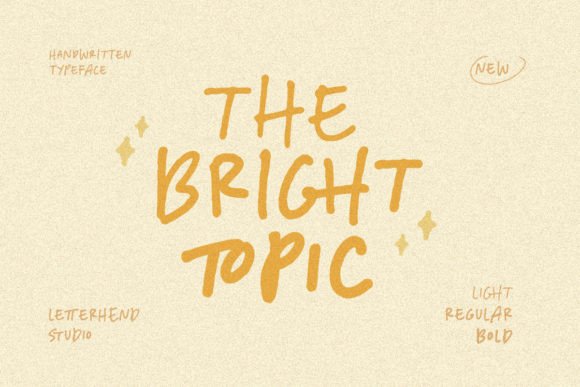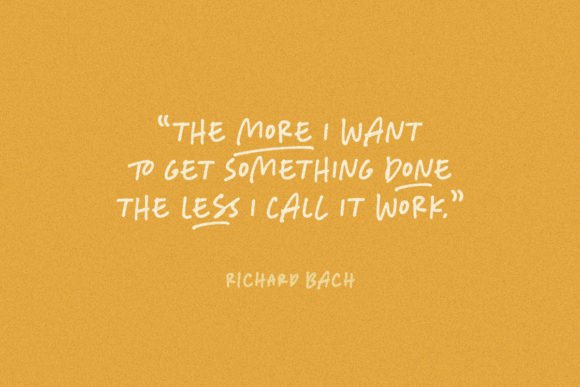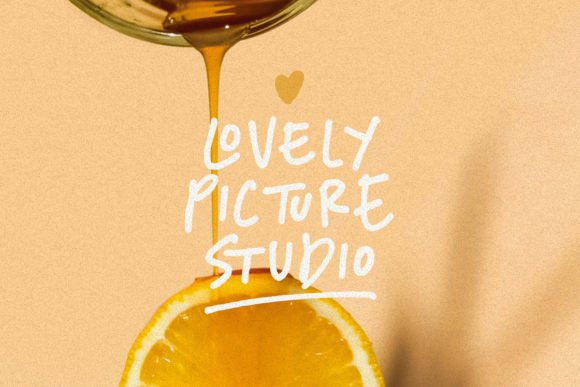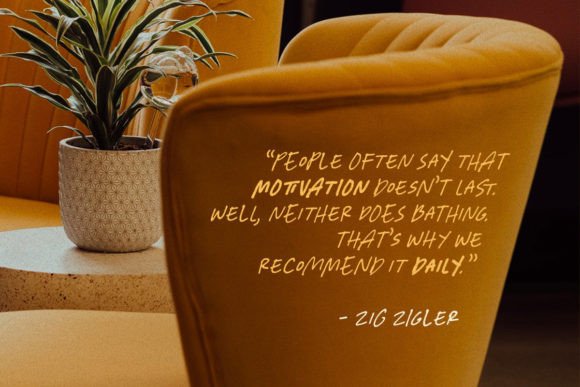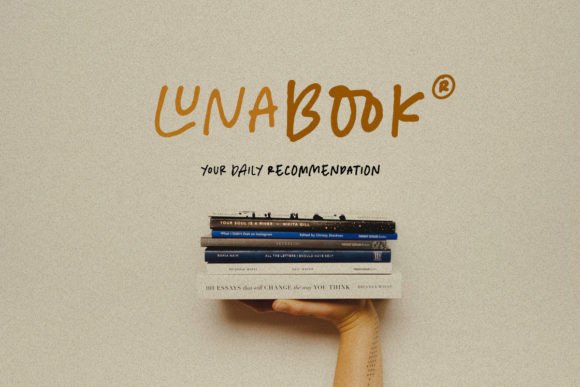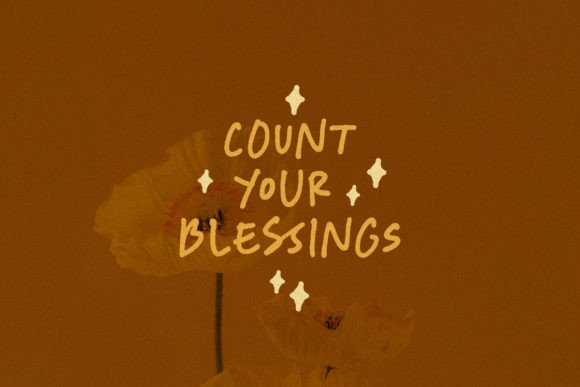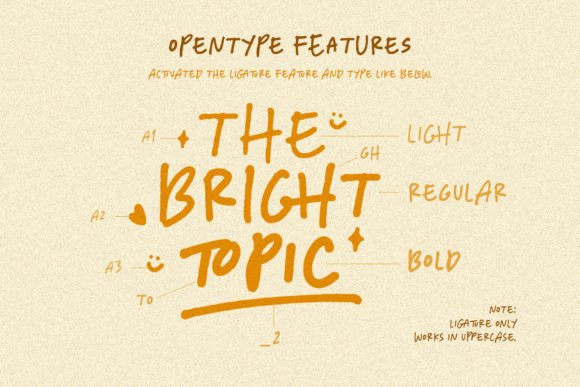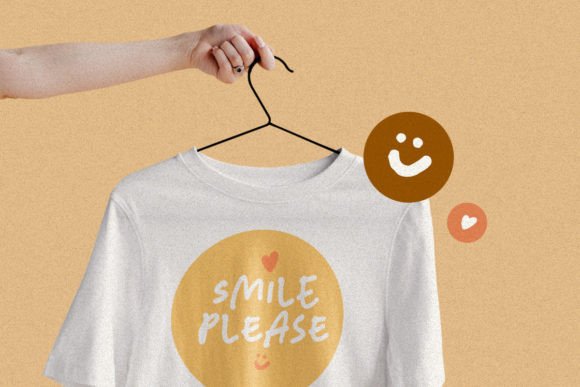
The Bright Topic Font
About The Bright Topic Font
**The Bright Topic Font: Infuse Fun and Friendliness into Your Designs**
The Bright Topic font is a delightful handwritten typeface designed to inject fun and friendliness into your creative projects. This whimsical and joyful font offers a playful touch that can instantly uplift your designs. Here’s why The Bright Topic font is an excellent choice for adding a sense of cheer to your work:
**Fun and Friendly:** The Bright Topic font radiates a sense of fun and friendliness, making it perfect for designs that aim to convey joy, positivity, and approachability.
**Cute and Whimsical:** With its cute and whimsical style, this font captures the essence of childlike wonder and creativity, making it an ideal choice for projects targeting a younger audience or those that embrace a playful aesthetic.
**Versatility:** The font’s versatility allows it to be used across a wide range of applications, from greeting cards and invitations to social media graphics, posters, branding, and more.
**Unique Character:** The Bright Topic font stands out with its unique character, ensuring that your designs are distinctive and memorable.
**Youthful Vibe:** Its youthful vibe makes it suitable for children’s books, educational materials, nursery decor, and any content aimed at sparking imagination and curiosity.
**Joyful Messages:** Use this font to convey joyful messages, spread positivity, and create a sense of happiness in your designs.
**Greeting Cards:** Design cheerful greeting cards for birthdays, holidays, or any occasion that calls for a celebratory tone.
**Invitations:** Add a touch of whimsy to your event invitations, whether it’s a birthday party, baby shower, or a casual get-together with friends.
**Social Media Posts:** Elevate your social media content with The Bright Topic font, infusing your posts with a friendly and approachable vibe.
**Posters and Prints:** Create eye-catching posters, prints, and wall art that bring a smile to people’s faces.
**Logo and Branding:** Inject a sense of fun and approachability into your brand identity with a logo or branding elements featuring this font.
**Children’s Books:** Use The Bright Topic font for children’s book titles, cover designs, and illustrations, enhancing the overall appeal of your storytelling.
**Craft Projects:** Whether you’re working on DIY crafts or scrapbooking, this font adds a charming and playful element to your projects.
**Cheerful Quotes:** Design inspirational and cheerful quote graphics that resonate with your audience.
**Stickers and Labels:** Create whimsical stickers and labels for packaging, products, or personal use.
**Elevate Creativity:** The Bright Topic font encourages creativity and imaginative design solutions, making it a valuable asset for artists, designers, and content creators.
**Positive Impact:** Use this font to make a positive impact, spreading happiness and good vibes through your designs.
**Personalized Touch:** The playful nature of this font is perfect for adding a personalized touch to your creative projects.
Whether you’re a designer, illustrator, teacher, parent, or anyone seeking to infuse a sense of joy and friendliness into your work, The Bright Topic font offers a creative and charming way to do so. Its whimsical style is sure to bring a smile to your audience’s faces and make your designs stand out with a cheerful and inviting personality.